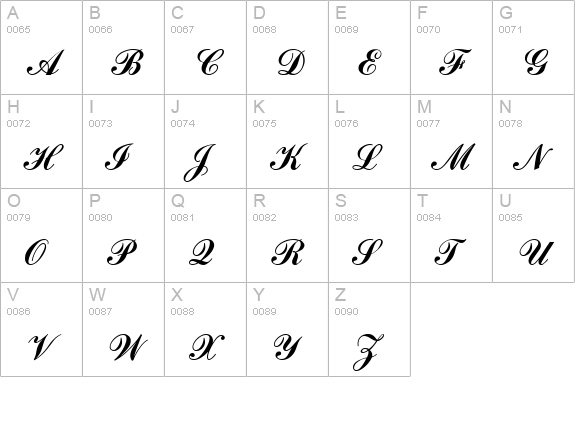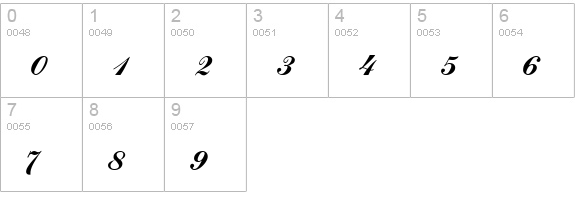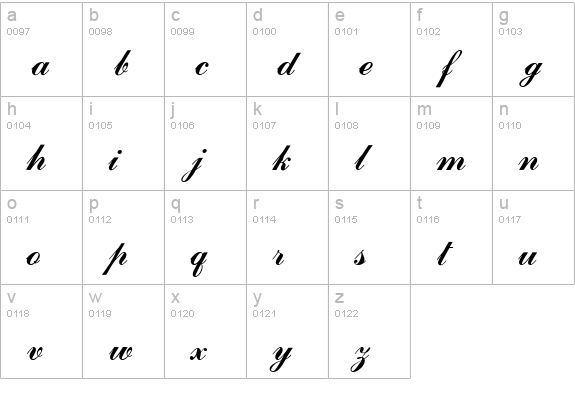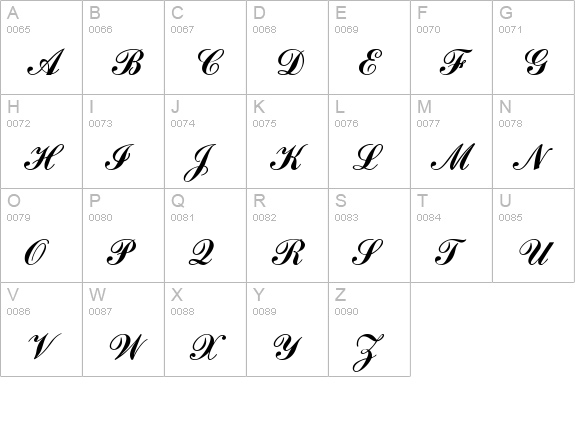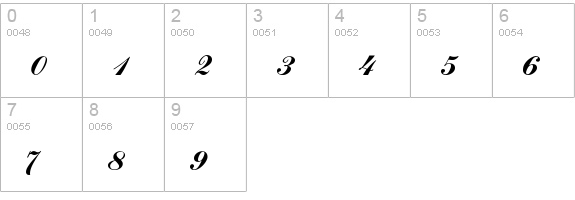
Commercial Script MN is a stylish and elegant font that exudes sophistication and charm. With its delicate curves and flowing strokes, this font is perfect for adding a touch of class to any design project. Whether you're creating wedding invitations, business cards, or advertising materials, Commercial Script MN is sure to make a lasting impression. The best part? Commercial Script MN is available for free download at FontsMarket.com. That's right, you can get your hands on this beautiful font without spending a dime. So why wait? Add a touch of elegance to your designs with Commercial Script MN today.